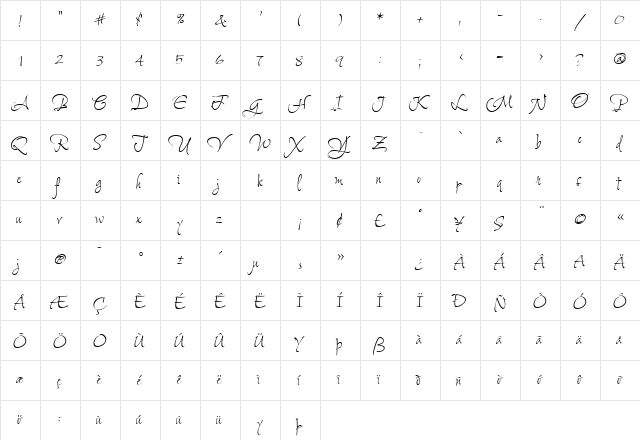
Shalimar Swash Regular
Design Context for Shalimar Swash Typeface
Shalimar Swash flows with the natural rhythm of handwritten lettering, making it ideal for designs that call for warmth and personal expression.
Font Pairing: Combine Shalimar Swash with a simple geometric sans for maximum contrast — the tension between flowing curves and clean structure is a classic typographic pairing.
Pro Tip: Use Shalimar Swash for short runs of text — names, titles, or taglines. Extended body copy in script faces tires the eye quickly.